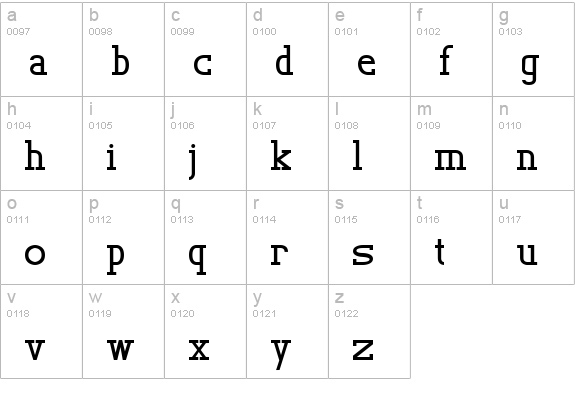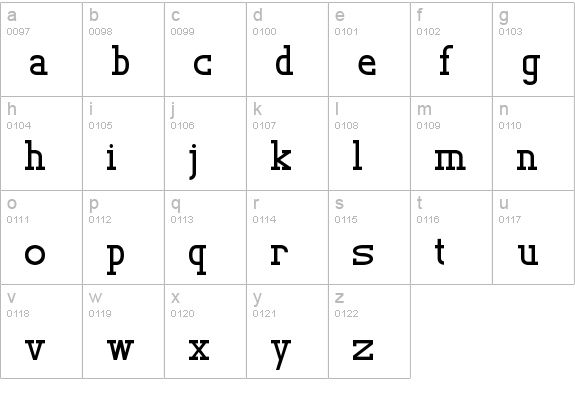
TL Serif Bold Font Details
TL Serif Bold is a strong, high-contrast variant in the TL typeface family \xE2\x80\x94 well suited to headlines, attention-grabbing titles, and strong calls-to-action.
TL Serif Bold is a stunning font that exudes elegance and sophistication. With its bold and confident strokes, this typeface commands attention and adds a touch of authority to any design. The clean and crisp lines of TL Serif Bold make it perfect for headlines, logos, and branding materials. This font boasts a timeless appeal, seamlessly blending classic and modern elements. Its strong and sturdy appearance makes it a versatile choice for both print and digital projects. Whether used in a magazine spread, a website header, or a business card, TL Serif Bold leaves a lasting impression. One of the best features of TL Serif Bold is that it is free! Yes, you read that right. This incredible font is freely available to download at FontsMarket.com. Now you can elevate your design without breaking the bank. With just a few clicks, you can have TL Serif Bold at your fingertips, ready to enhance your creative endeavors. The versatility and accessibility of TL Serif Bold make it a must-have for designers, entrepreneurs, and anyone who wants to make a bold statement. This font has the power to transform any project, adding a touch of professionalism and sophistication. So why wait? Unlock the potential of your designs with TL Serif Bold. Download it for free today at FontsMarket.com and let your creativity shine.